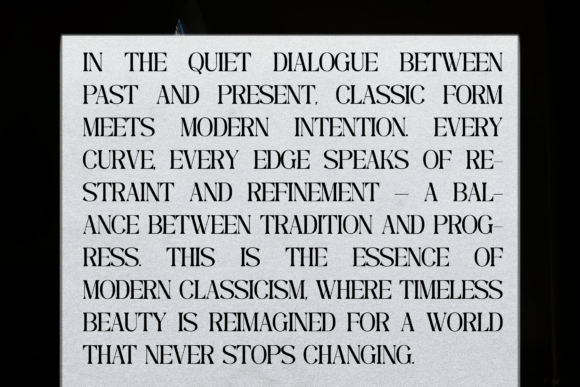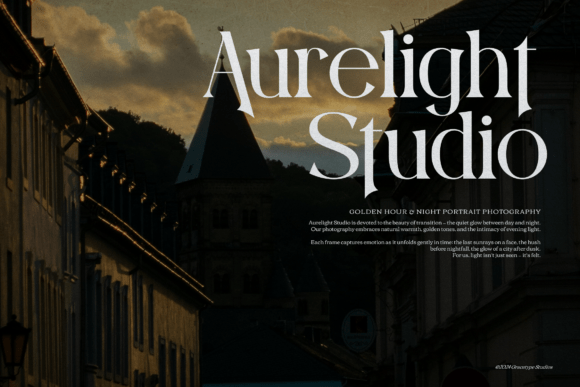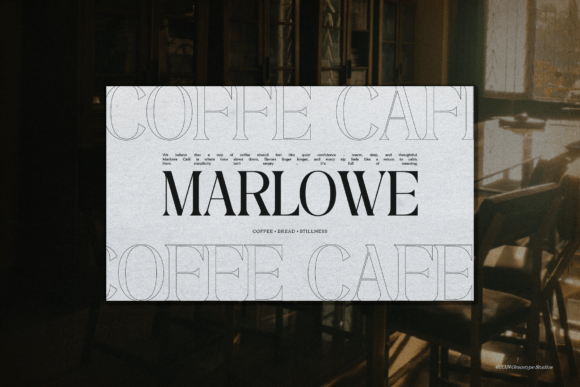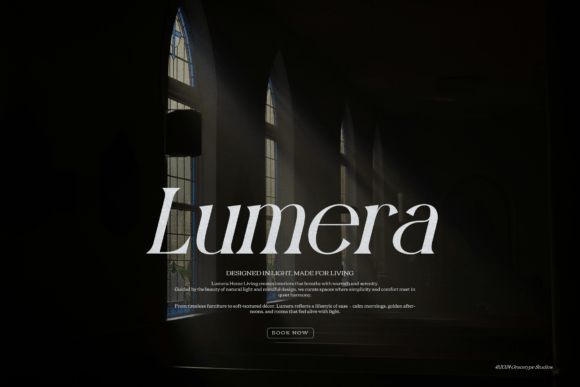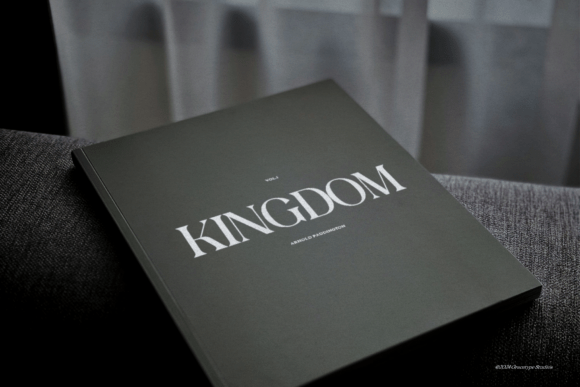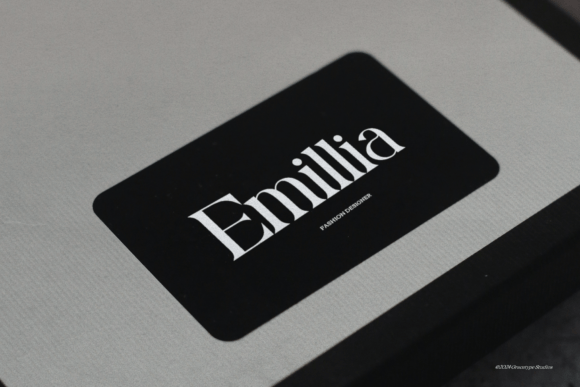
Introduction to Rubington Font Font
Fonts play a crucial role in design, and the Rubington Font font is a typeface that brings both character and versatility to any project. Whether you’re working on a branding project, a website, or a print design, the Rubington Font font offers a unique style that can elevate your work.
RUBINGTON font is a modern display serif font with sharp characters and sophisticated details.
Crafted with precision, the RUBINGTON font brings together classic elegance and edgy geometry, resulting in a timeless yet contemporary feel Unique leg curves, tapered terminals, and custom ligatures give Rubington its refined silhouette — ideal for luxury branding, editorial headlines, book covers, fashion logos, and creative portfolios.
Key Features of Rubington Font Font
Why Choose Rubington Font Font?
The Rubington Font font is more than just a typeface – it’s a design tool that helps you communicate your message with style and clarity. Its unique character set and versatile design make it suitable for a wide range of applications, from elegant invitations to bold headlines.
With its carefully crafted letterforms and balanced proportions, the Rubington Font font ensures readability and visual appeal across all mediums.
What makes Rubington Font font special?
The Rubington Font font stands out with its unique design, exceptional readability, and versatility across various design applications.